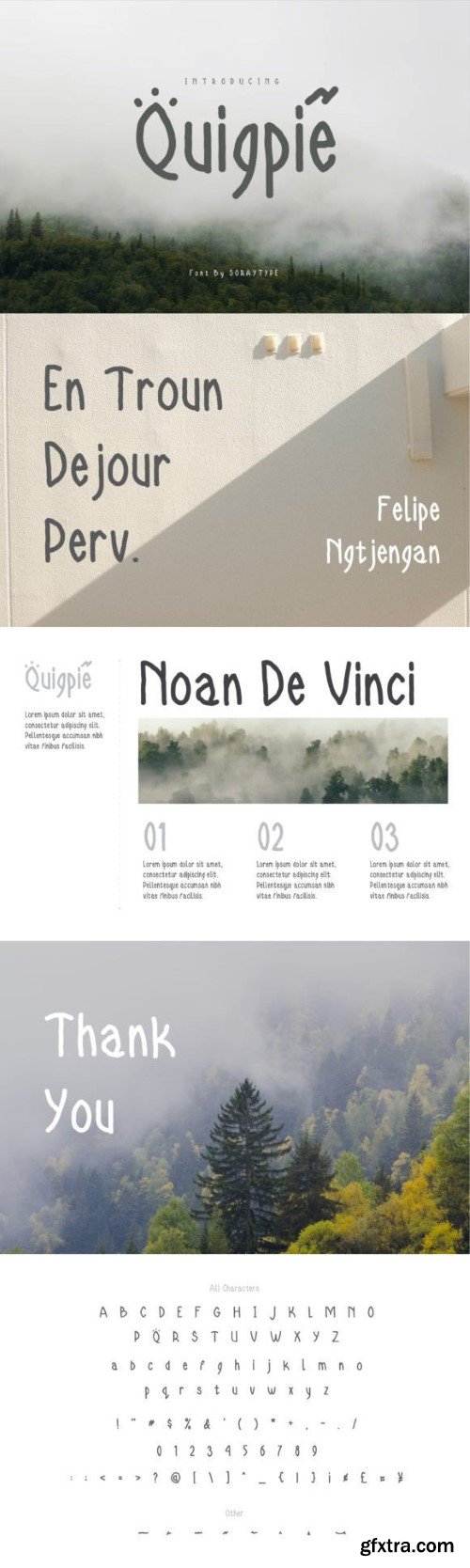
Quigpie is a playful marker font crafted by hand, giving your text a friendly and casual feel. With its handwritten charm, Quigpie adds a personal touch to your projects, making it perfect for anything from invitations to DIY crafts. Embrace the whimsical strokes and genuine character of Quigpie for a delightful and approachable vibe in your designs.